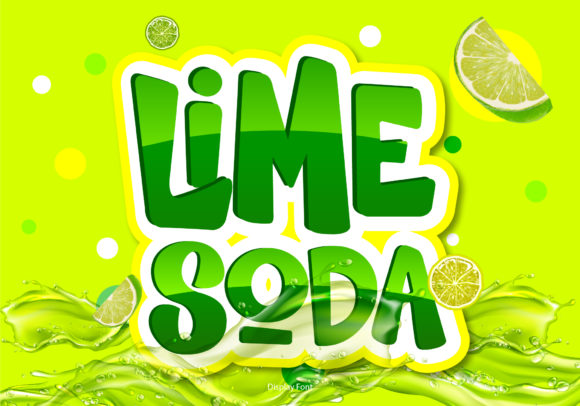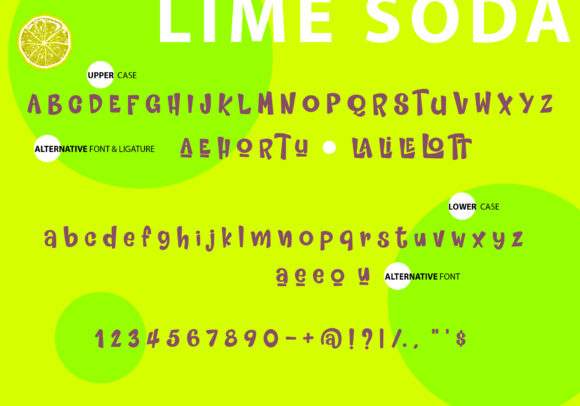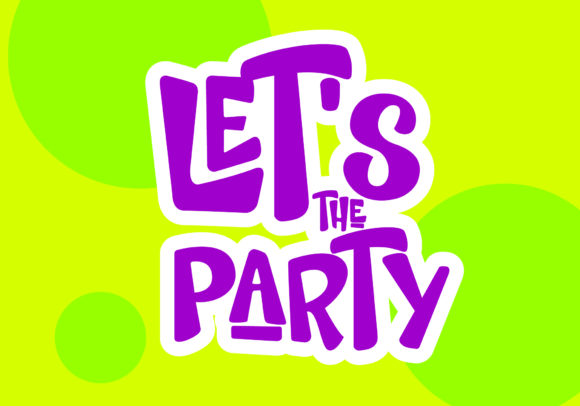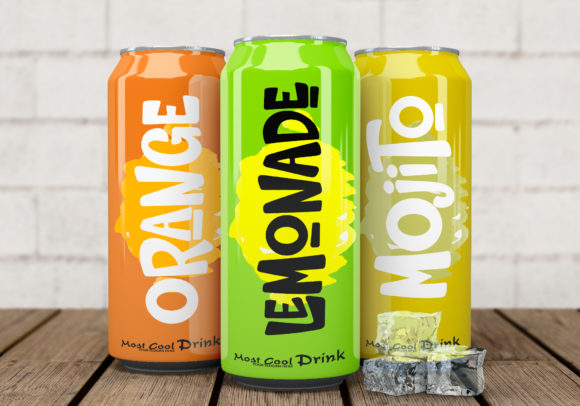
Lime Soda Font: A Playful & Bold Display Font for Posters!
About the Lime Soda Font
From logos to headlines, the Lime Soda Font is the perfect choice for making a lasting impression. Lime Soda is a bold and quirky display font. Its friendly feel makes this font incredibly versatile, fitting a wide range of contexts. Add it to your creative ideas and notice how it makes them stand out!
Lime Soda’s playful boldness makes it ideal for headlines, logos, short taglines, and packaging design where a fun, approachable feel is desired. It works particularly well for brands targeting younger demographics or those with a vibrant, energetic identity. However, its quirky letterforms are less suitable for body text or lengthy paragraphs, as readability would suffer. Avoid using it in UI contexts requiring high legibility.
Pairing Lime Soda effectively requires considering its energetic personality. A clean, geometric sans-serif like Montserrat would provide a strong contrast and enhance readability in supporting text. Alternatively, a classic serif font such as Garamond could create a sophisticated juxtaposition, grounding the playful energy of Lime Soda. For a more whimsical feel, consider pairing it with a delicate script font like Great Vibes, but use it sparingly.
Lime Soda’s overall personality is best described as bold and friendly, with a touch of retro charm. Its quirky character makes it a strong choice for projects that prioritize a memorable, visually engaging brand identity.
Lime Soda Font Usage Examples
Lime Soda Font Example